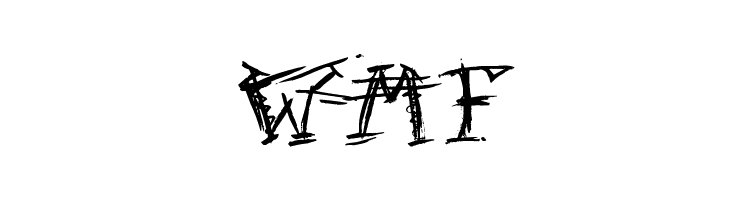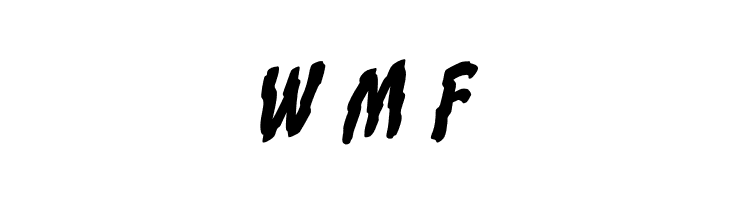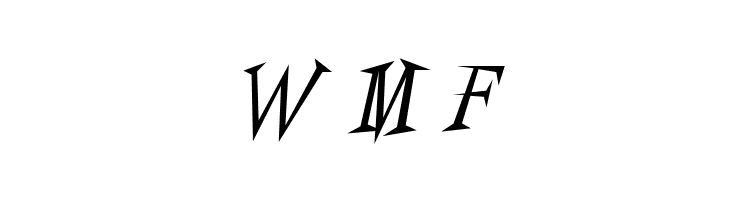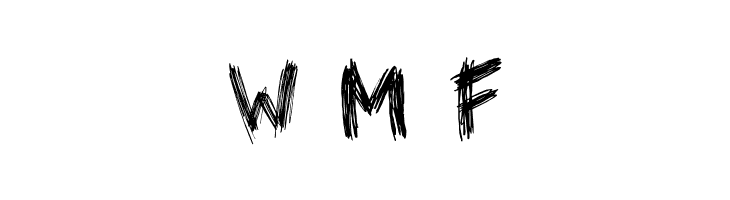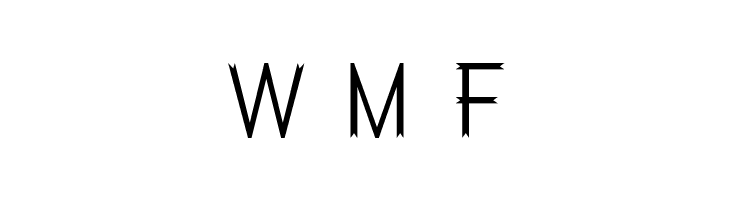
A distressed, chaotic font with jagged edges and irregular strokes.
A rough, hand-drawn font with thin, irregular strokes and a dynamic, edgy style.
A bold, italicized font with a rugged, distressed appearance.
A bold, graffiti-inspired font with dynamic, expressive characters.
A bold, angular font with sharp edges and a rebellious style.
A distressed, grungy font with rough, irregular edges for an edgy look.
A chaotic, ransom note-style font with mixed typefaces and sizes.
A bold, edgy font with sharp, angular accents resembling barbed wire.
A bold, distressed font with a grunge texture and angular edges.